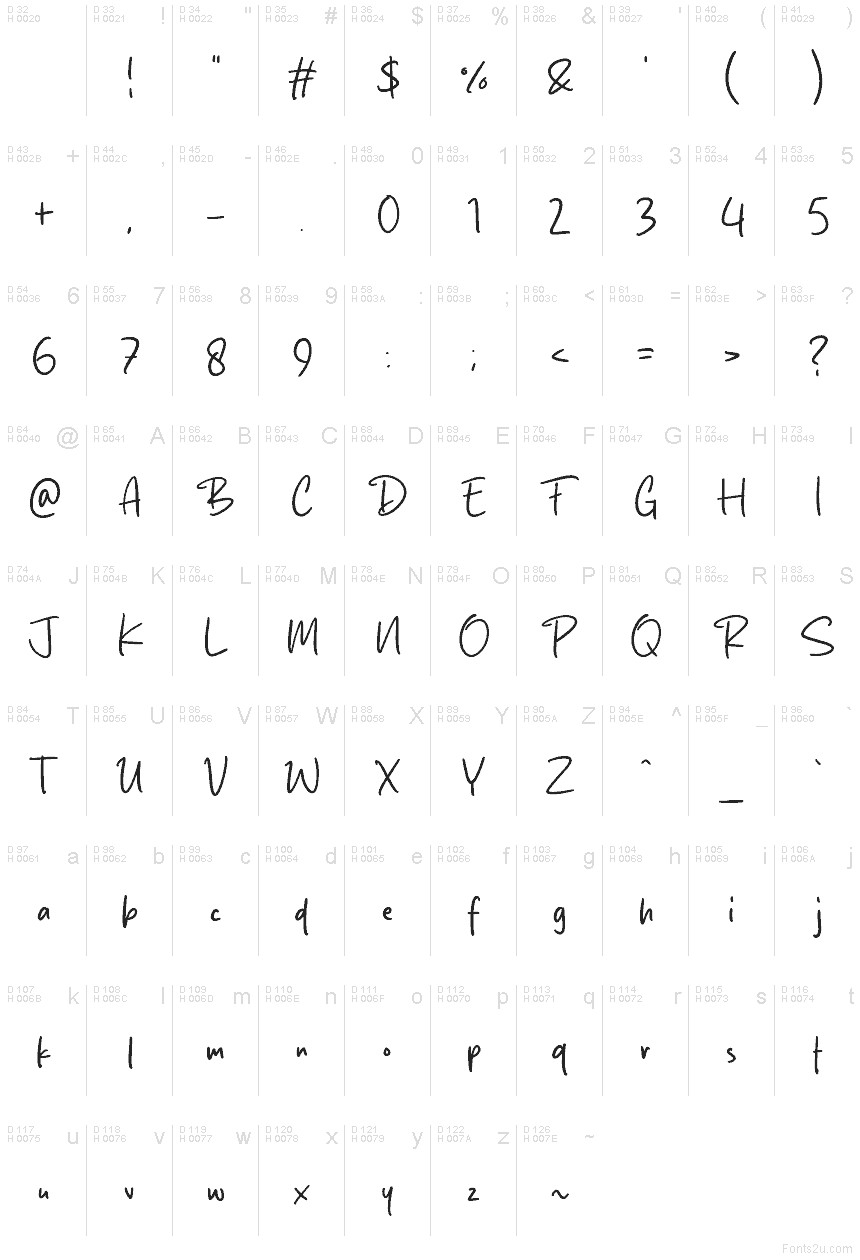
Butter Gold
Butter Gold font by MJType is a free handwritten font with a casual and modern aesthetic. This typeface has an organic flow, expressive character, and creative flair. Its relaxed penmanship results in letters with tactfully exaggerated elements resulting in disproportionate script letters.